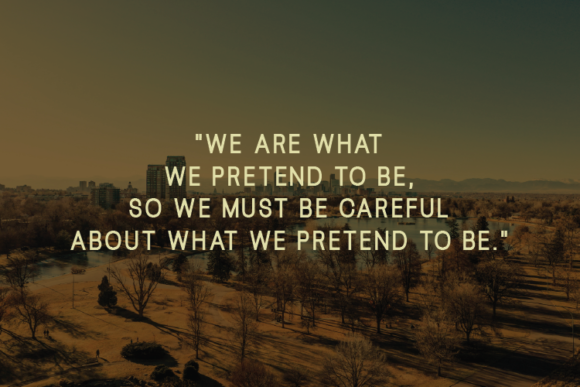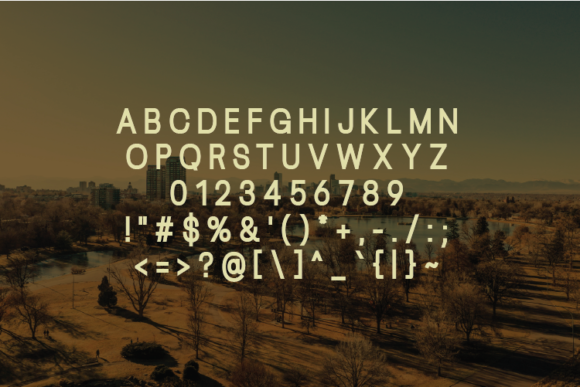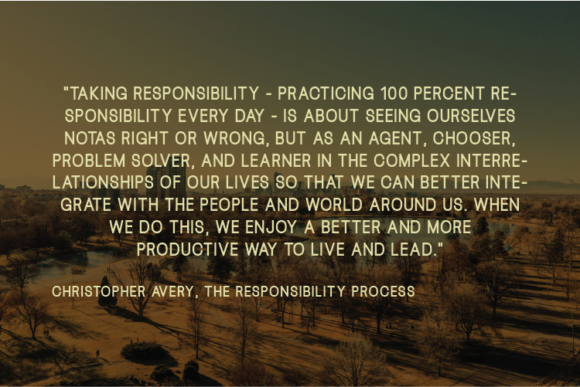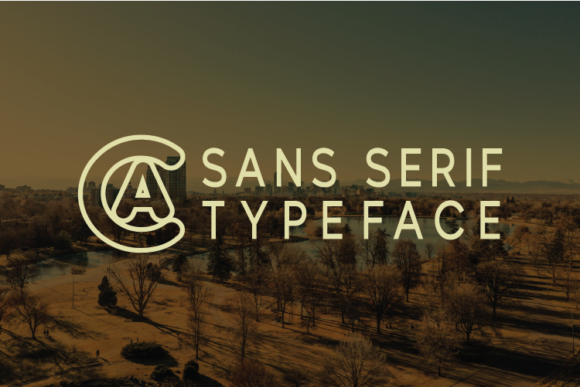
The Denver Font: A Modern and Classy Sans Serif for Creative Projects
I’ll never forget the time I was working on a wedding invitation design project, and my client asked for a font that was both modern and elegant. I scoured the internet, tried out dozens of fonts, but none seemed to fit the bill. That was until I stumbled upon the Denver font. ✨
This extremely versatile sans serif typeface has become a go-to in my design toolkit, and I’m excited to share its features and uses with you. Whether you’re a designer, crafter, or creative hobbyist, Denver is perfect for logos, weddings, invitations, quotes, advertisements, print, magazines, and more!
An Honest Review of Denver Font
- ✅ **Clean and modern design**: Denver’s sleek lines and curves make it perfect for contemporary designs.
- ✅ **Highly legible**: This font is easy to read, even at small sizes, making it ideal for body text and captions.
- ✅ **Versatile**: Denver works well for both digital and print projects, and its neutral tone fits with a wide range of design styles.
- ✅ **OpenType features**: Denver supports a range of OpenType features, including stylistic alternates, ligatures, and more.
While Denver is an excellent font, there are a few things to keep in mind: 🤔
- ⚠️ **Limited italic style**: Denver’s italic style is not as pronounced as some other fonts, which may be a consideration for designs that require a strong italic emphasis.
- ⚠️ **Not ideal for body text**: While Denver is legible, its modern design may not be the best choice for long blocks of body text. Consider using a serif font for these applications.
The Story Behind Denver Font
Denver was designed by a team of typographers who wanted to create a modern sans serif that would be both elegant and versatile. Inspired by the urban landscape and modern architecture, Denver’s clean lines and curves make it perfect for a wide range of design applications.
Q: Does Denver font support OpenType features?
Yes, Denver font supports a range of OpenType features, including stylistic alternates, ligatures, and more.